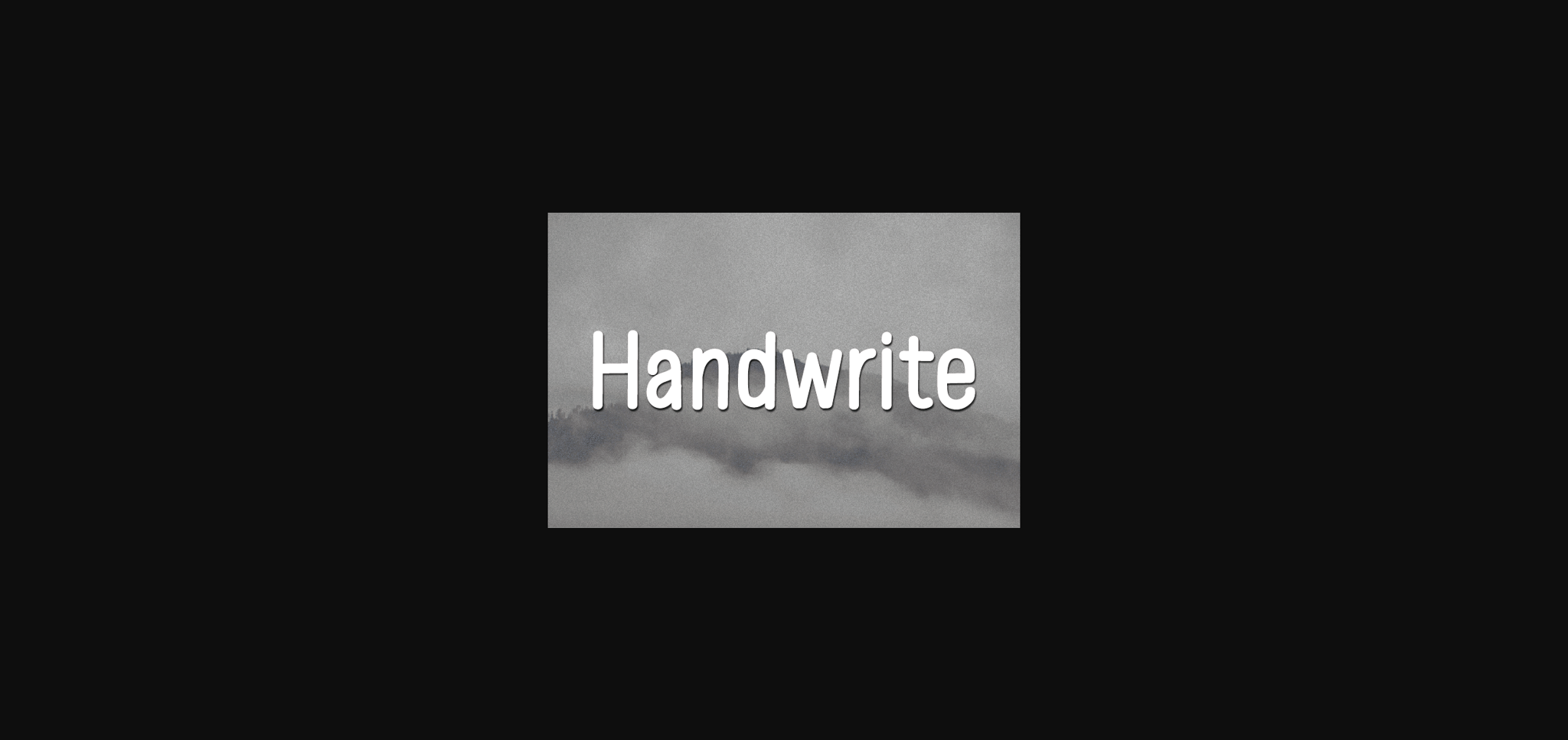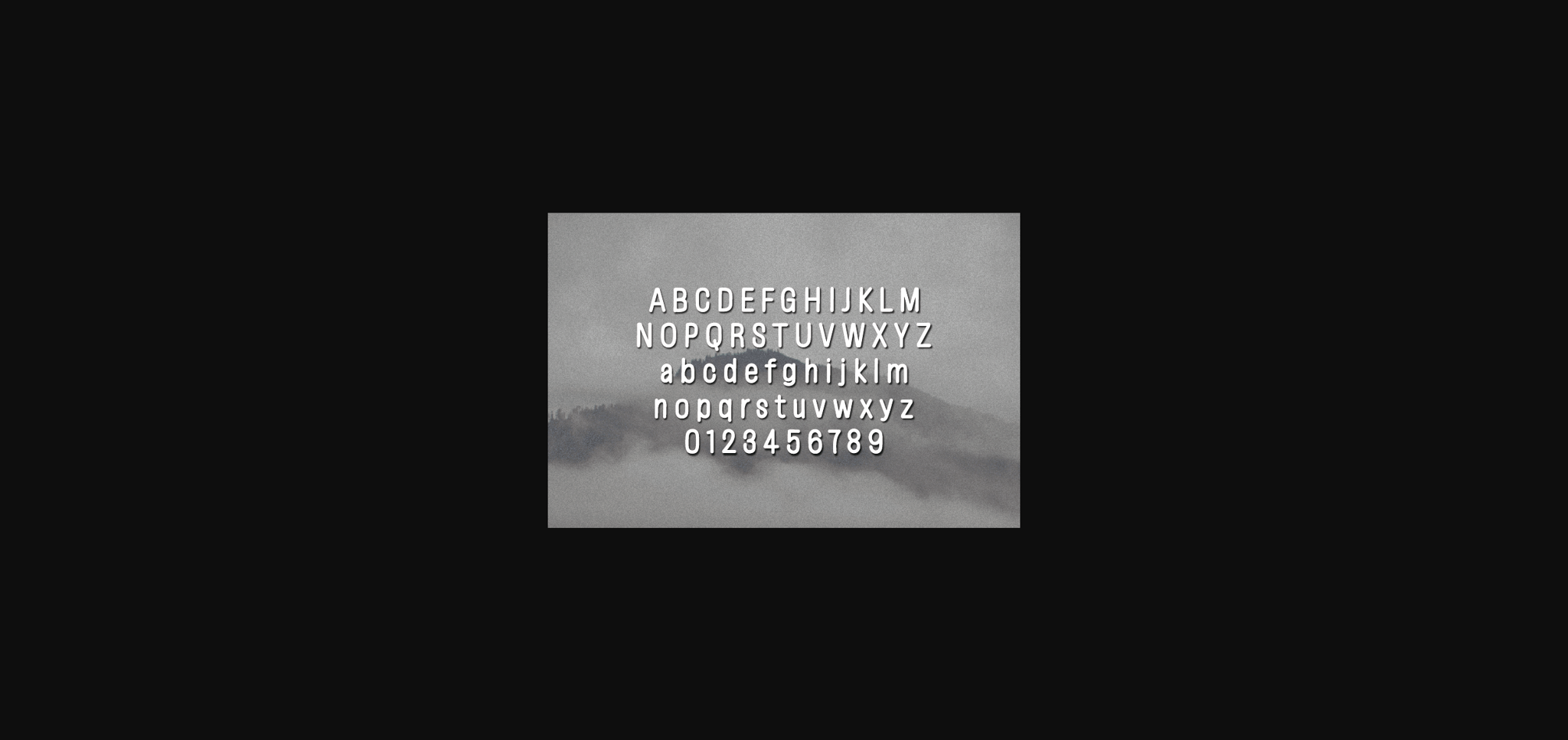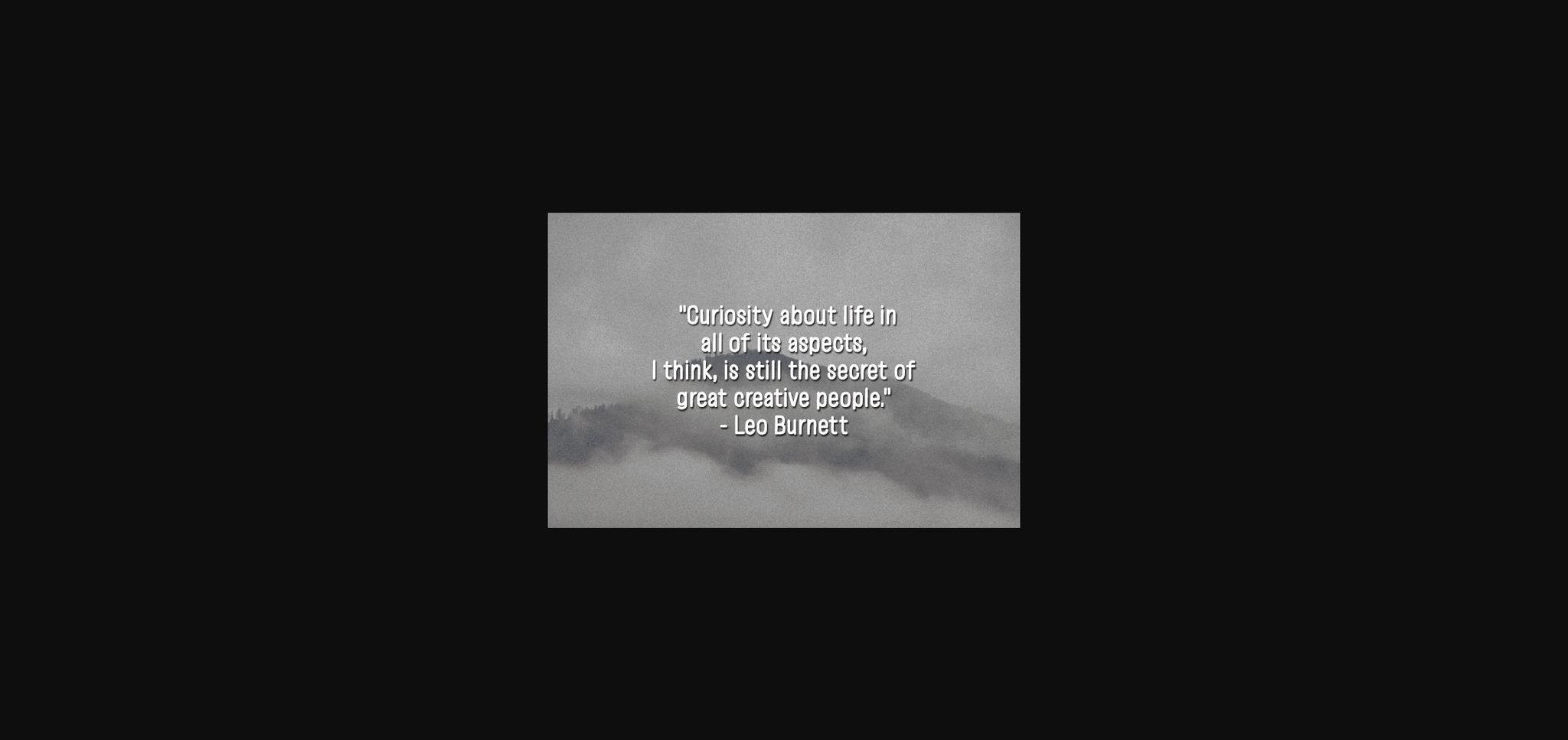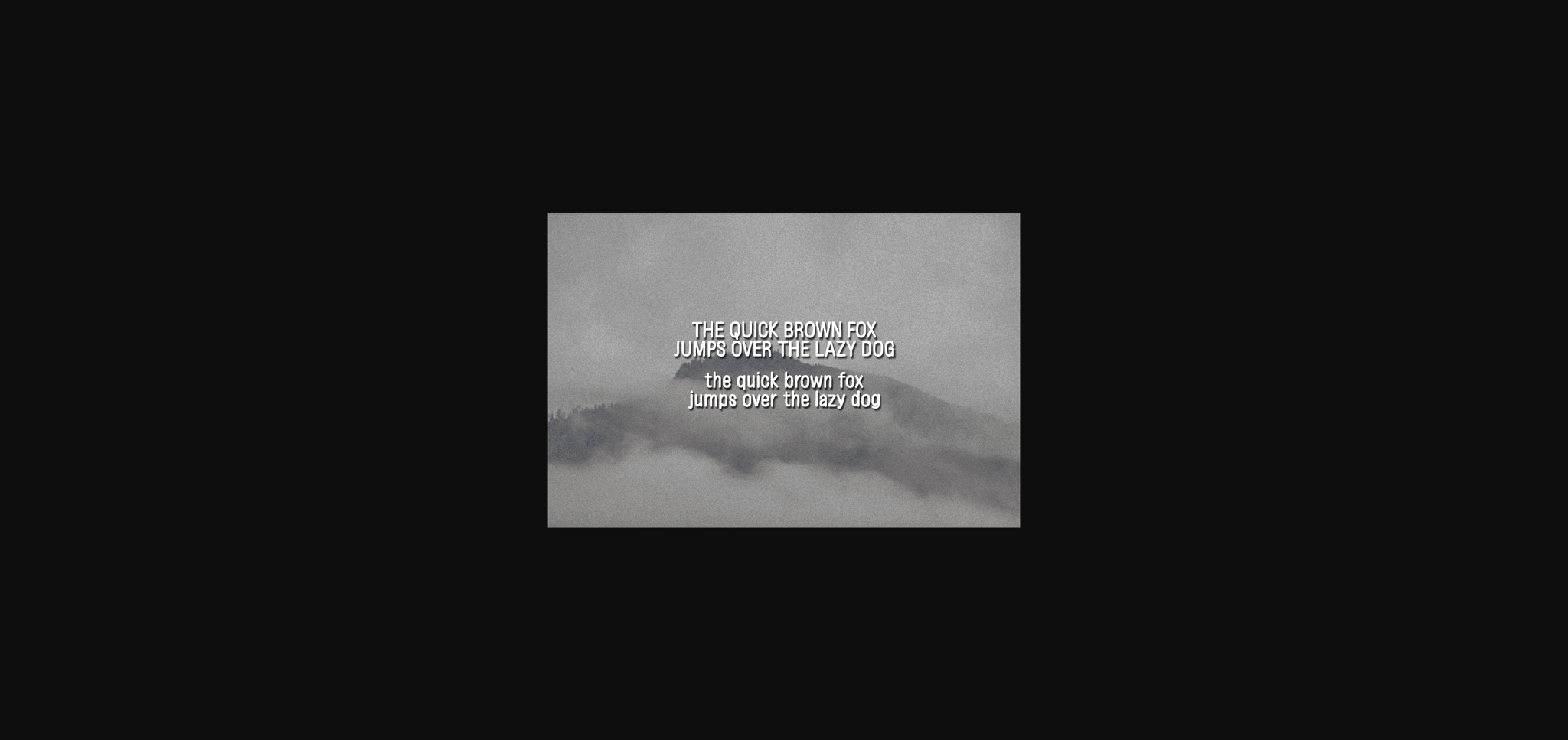
Handwrite is a natural sans serif font made without changing a single node in each character’s indentation – this makes this font very interesting and unique. Perfect for quotes, notes, tees, and any product design.